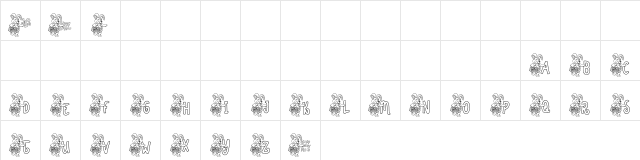
Easter Bunny Pooh Regular Font Preview
Easter Bunny Pooh Regular
Easter Bunny Pooh Regular Font Details
Design Context for Easter Bunny Pooh Typeface
Easter Bunny Pooh is a composed and adaptable typeface that performs quietly and consistently across a wide range of design contexts.